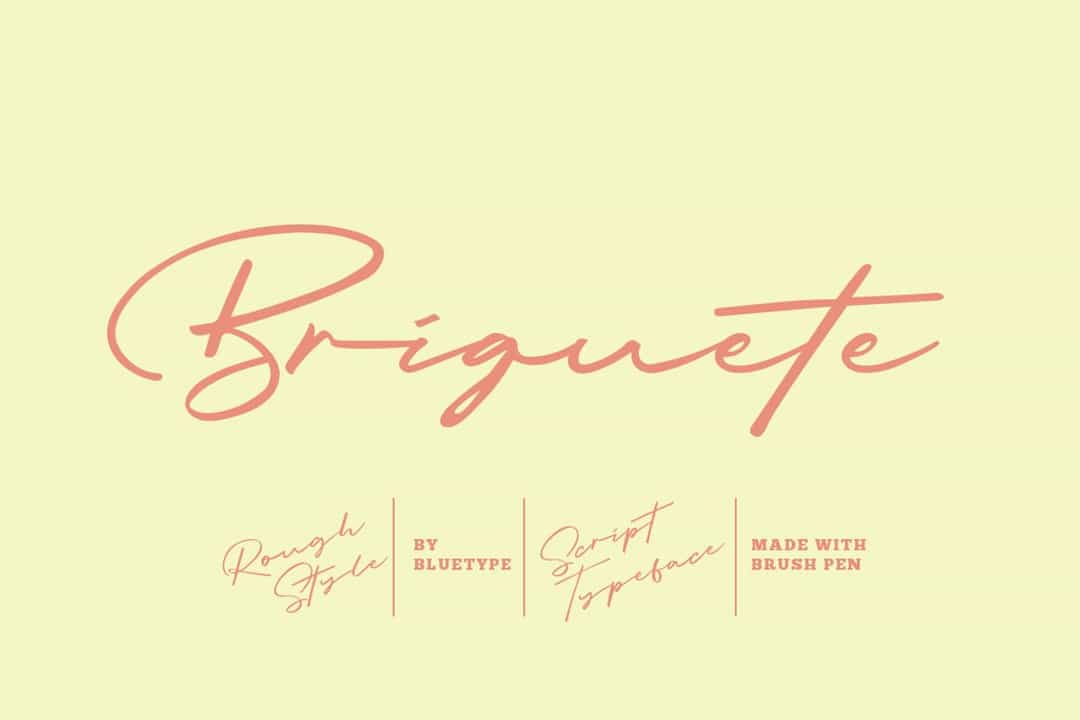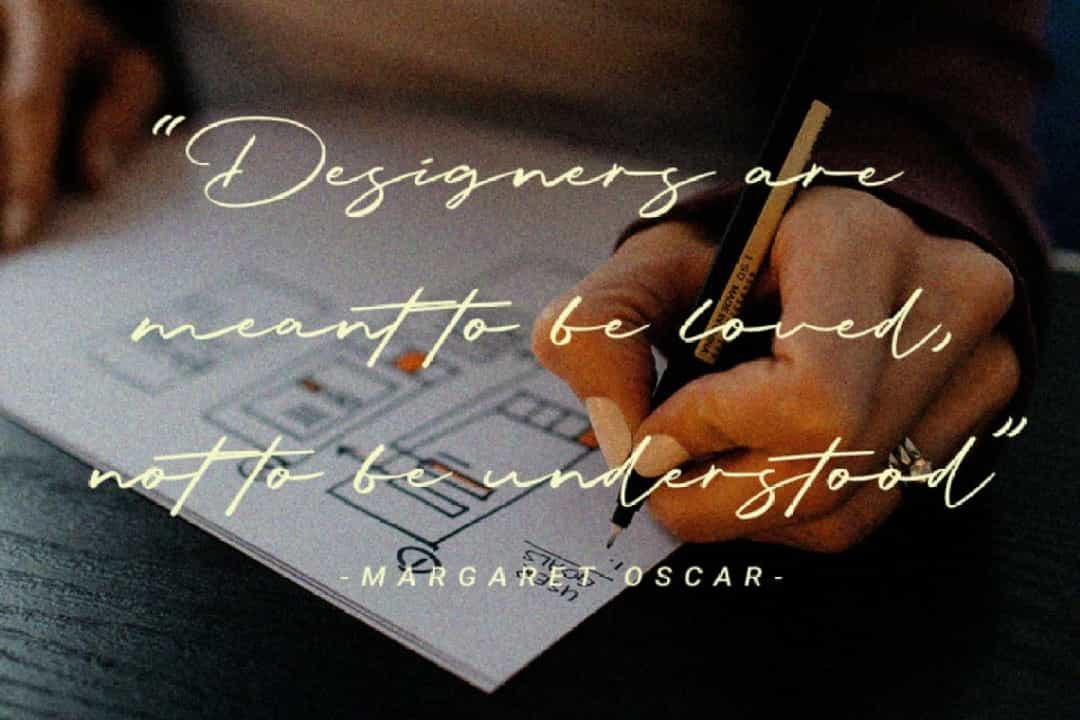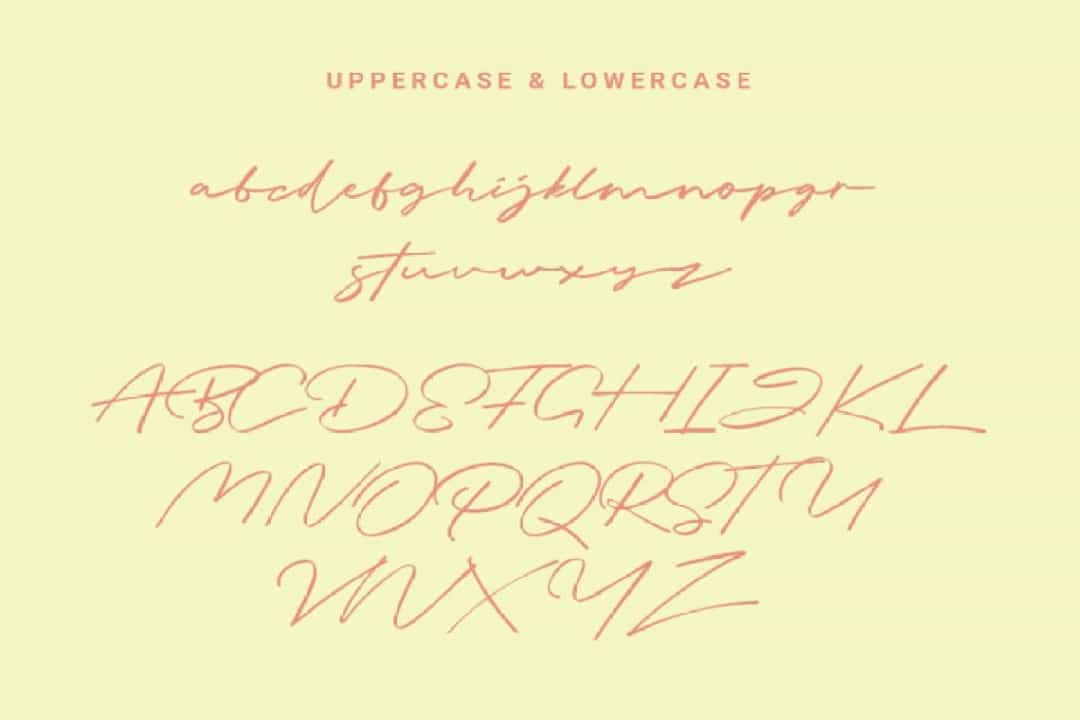
Briquete is another font that is developed by Bluetype and is under the Open Type features and the font has handwritten numerals and punctuation marks and supports multiple languages. It has a natural look because it was designed using a brush pen and most other fonts cannot make such a claim.